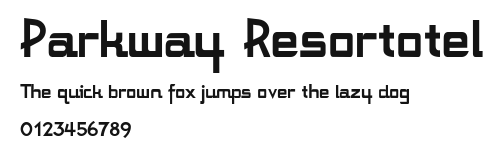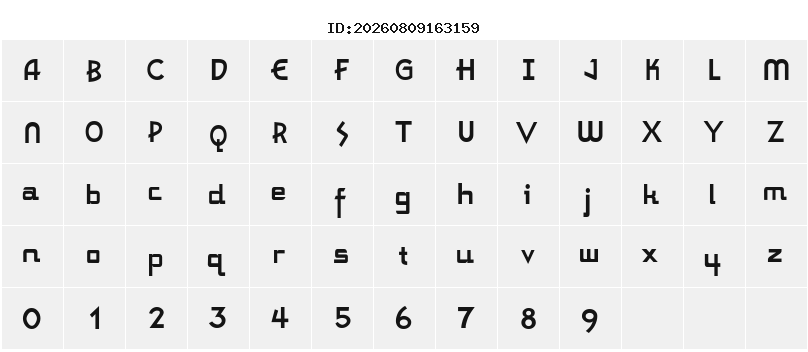
• Font Name: Parkway Resortotel
About Parkway Resortotel.ttf
Parkway Resortotel.ttf is a modern, elegant sans-serif font designed for ultimate readability and visual harmony. Perfect for branding, headlines, web design, and print materials.